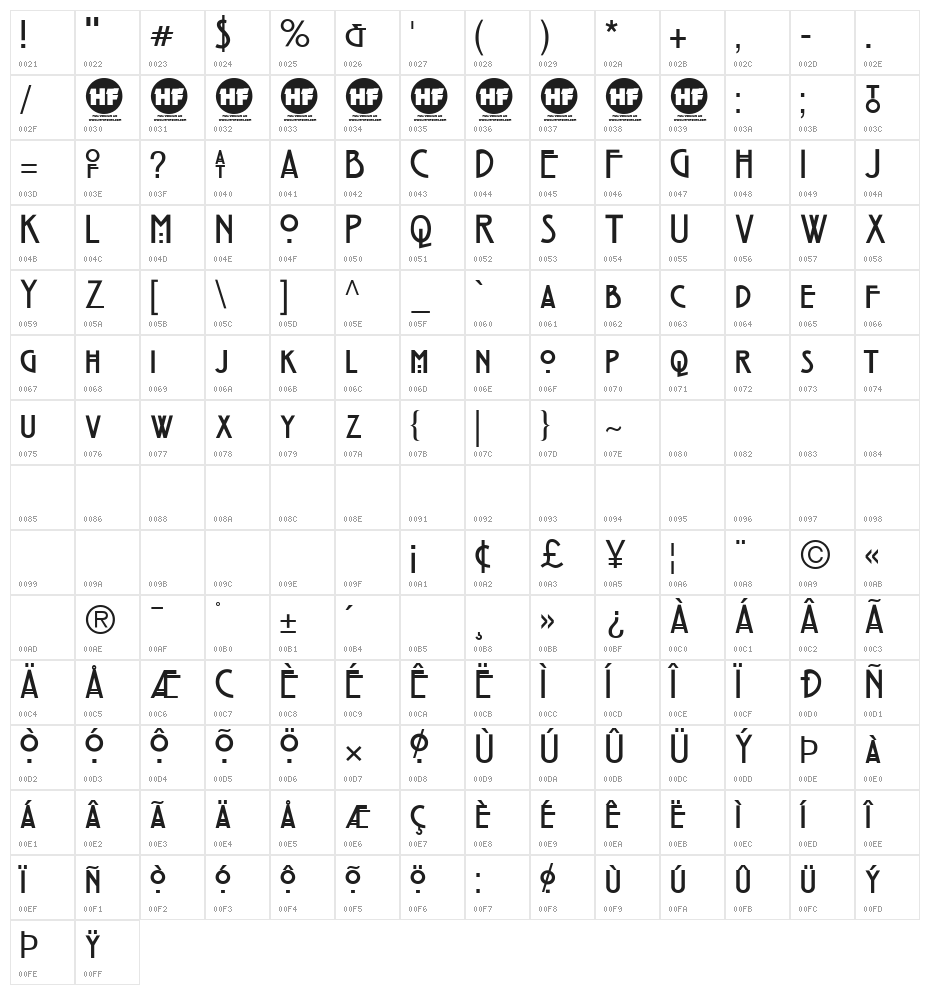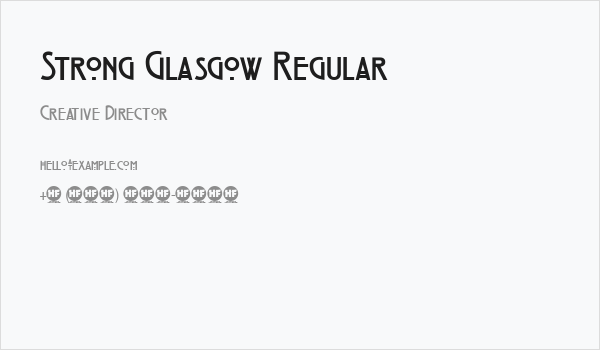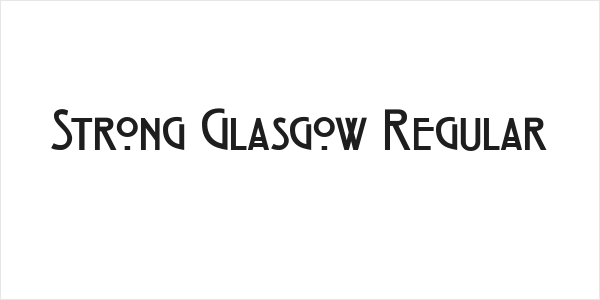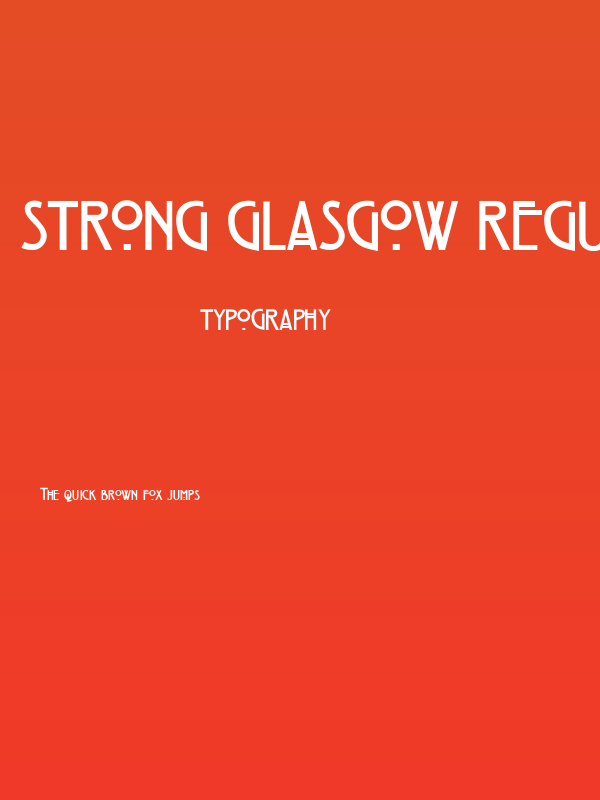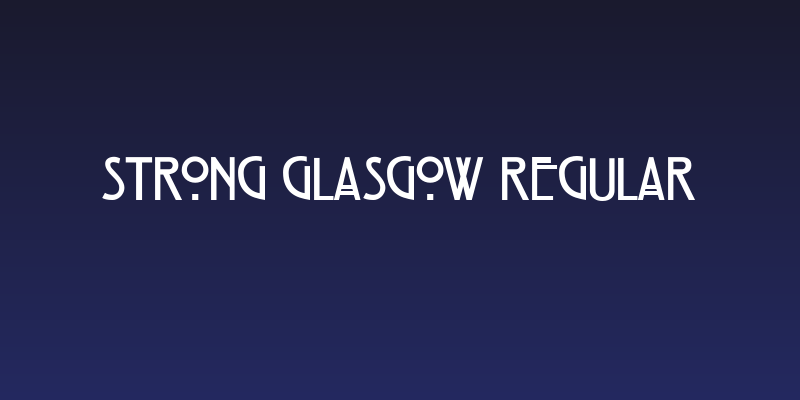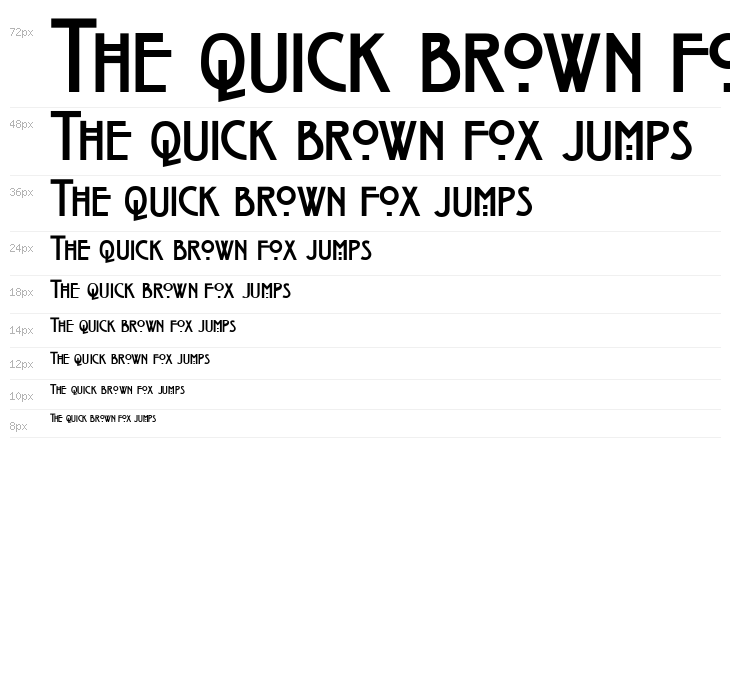
Strong Glasgow Regular Font
✎ Art Nouveau
Strong Glasgow Regular Description
This font presents a bold and geometric style, characterized by its strong, angular lines and distinct shapes. The uppercase letters are particularly striking, with a modern and assertive appearance. The characters exhibit a uniform stroke width, contributing to a clean and cohesive look. The design is minimalistic, yet impactful, making it suitable for attention-grabbing headlines or branding. The special characters maintain the same boldness and geometric precision, ensuring consistency across all glyphs. Overall, this font exudes a contemporary and professional vibe, ideal for projects that require a strong visual presence.
| Proposed Projects | Ideal for branding, headlines, posters, and any project requiring a bold visual impact. |